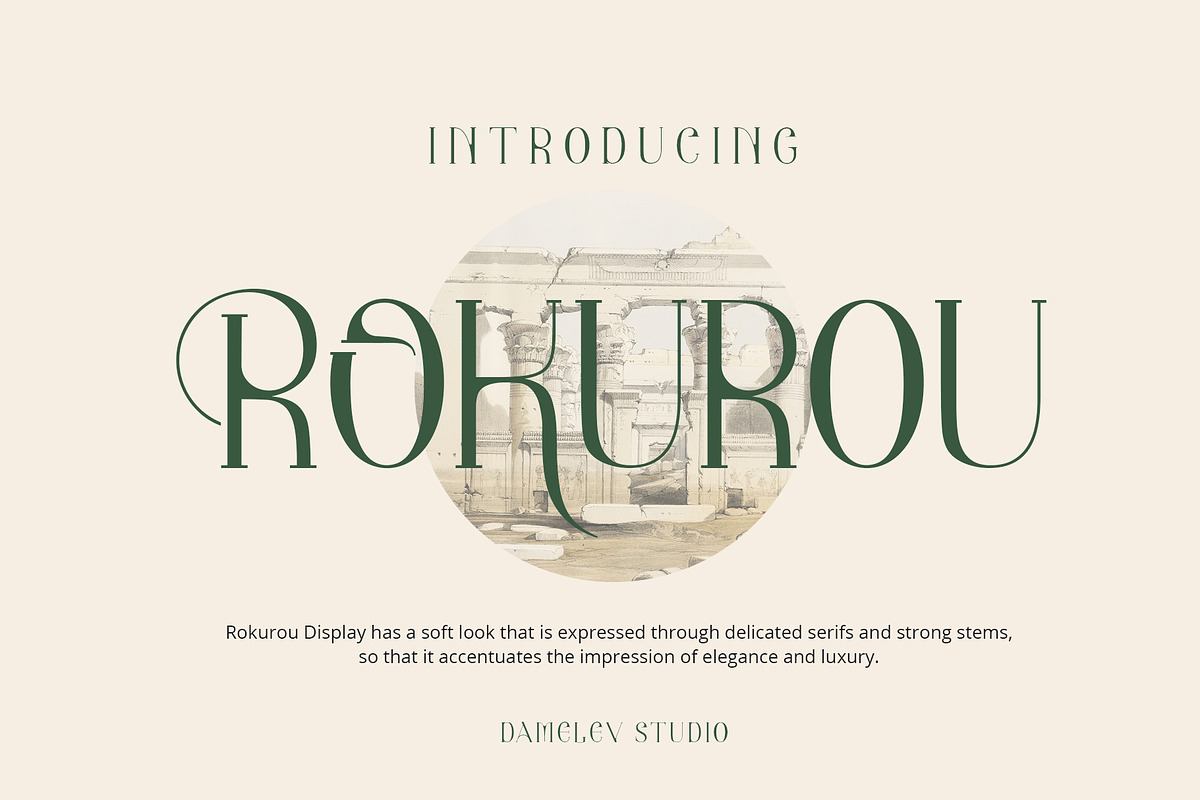
Rokurou Display Font Free Download is a bold, distinctive typeface designed with modern aesthetics and strong visual impact in mind. Its unique geometric structure and sharp edges make it perfect for branding, headlines, posters, logos, and any design that requires a high-impact, stylish font with character.
The clean, structured look of Rokurou brings a sense of professionalism and elegance, making it ideal for both digital and print use. Whether you're working on a corporate project, a fashion brand, or a modern event design, this font stands out and grabs attention.
Make your designs stand out with Rokurou Display Font Free Download, and create striking, memorable typography that brings modern elegance and strength to your work. Perfect for designers who seek bold, geometric display fonts with versatility and style.